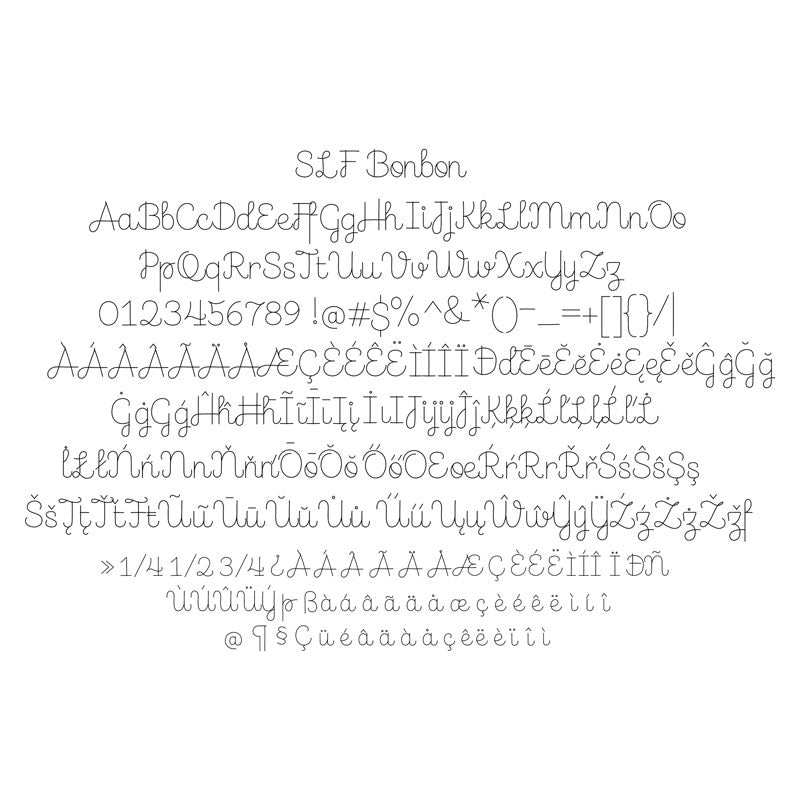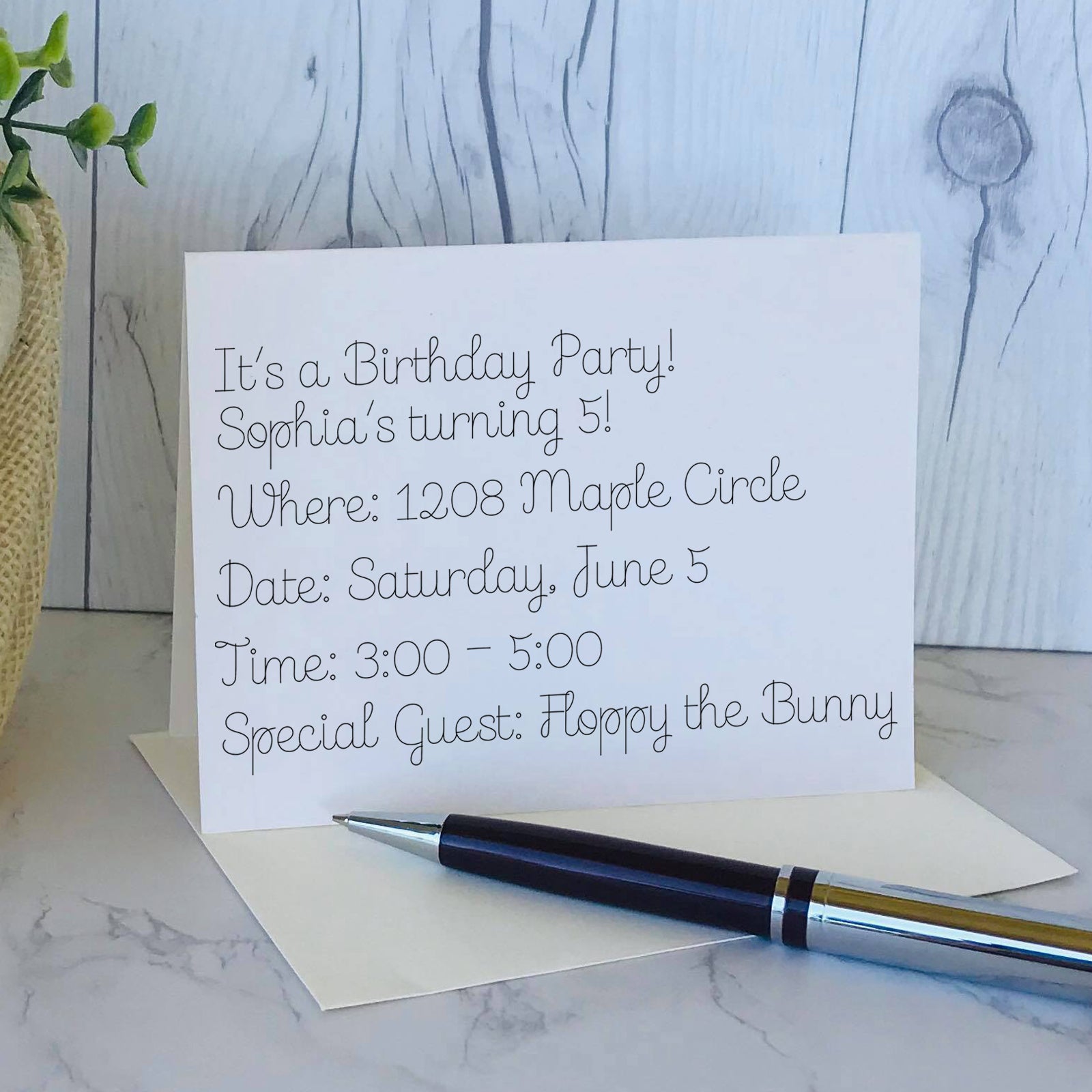
SLF Bonbon – Playful Single Line Font for Foil Quill, Cards & Engraving
SLF Bonbon is a playful single line print font made for lighthearted projects—perfect for card making with pen tools or Foil Quill, and also great for engraving when you want a fun, cheerful look.
This monoline font includes a complete character set with letters, numbers, punctuation, symbols, and accented characters (see images for the full set).
• Pen tools and Foil Quill projects
• Cards, labels, tags, and playful crafts